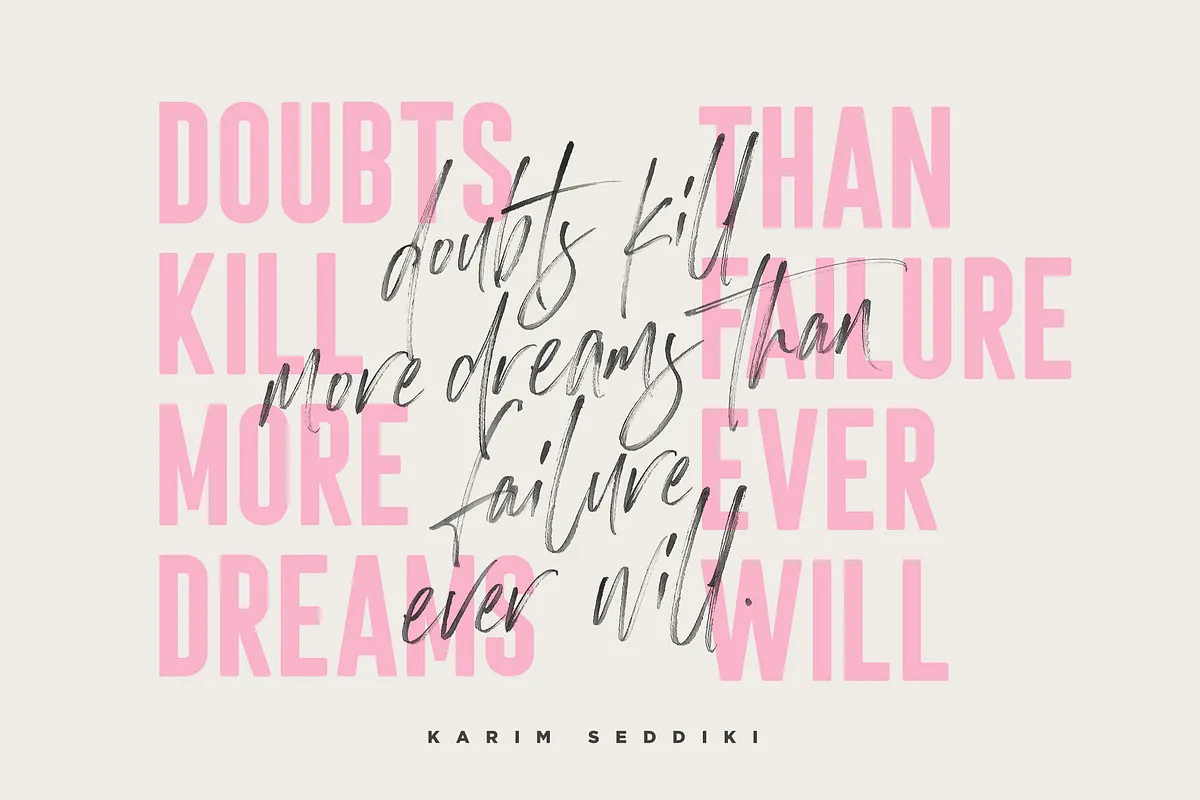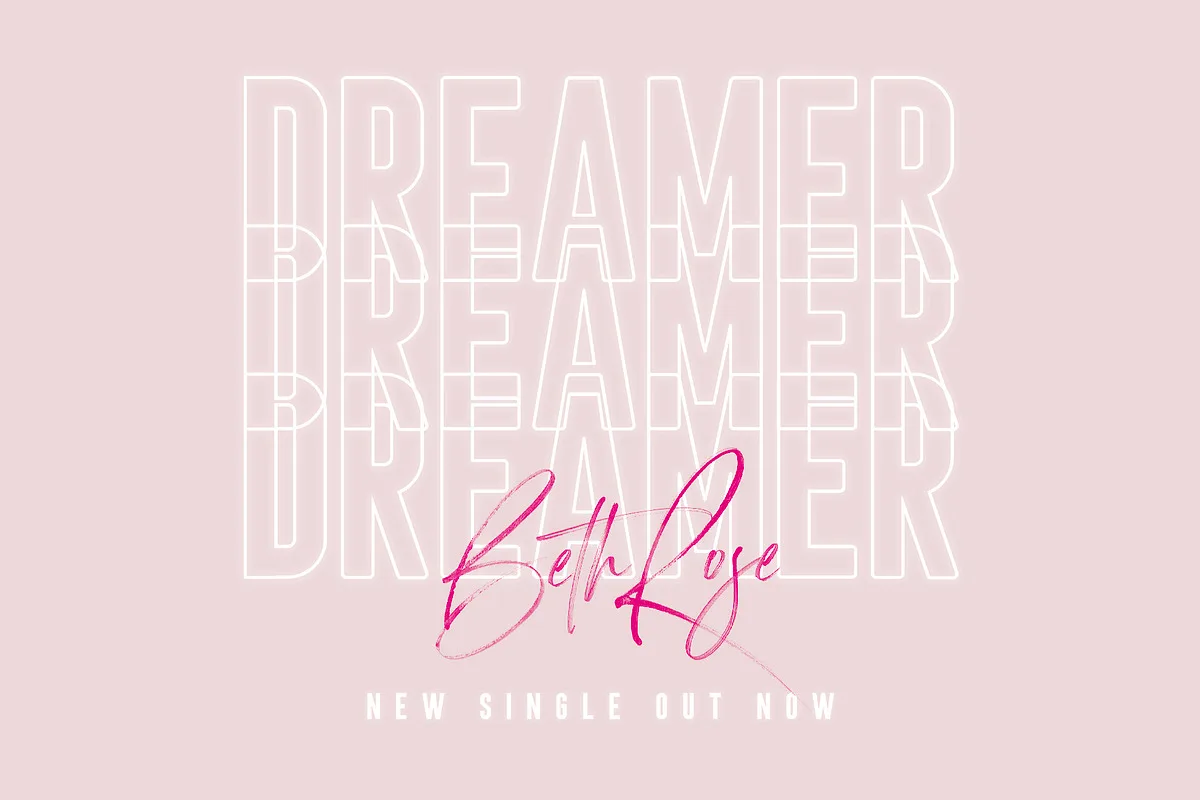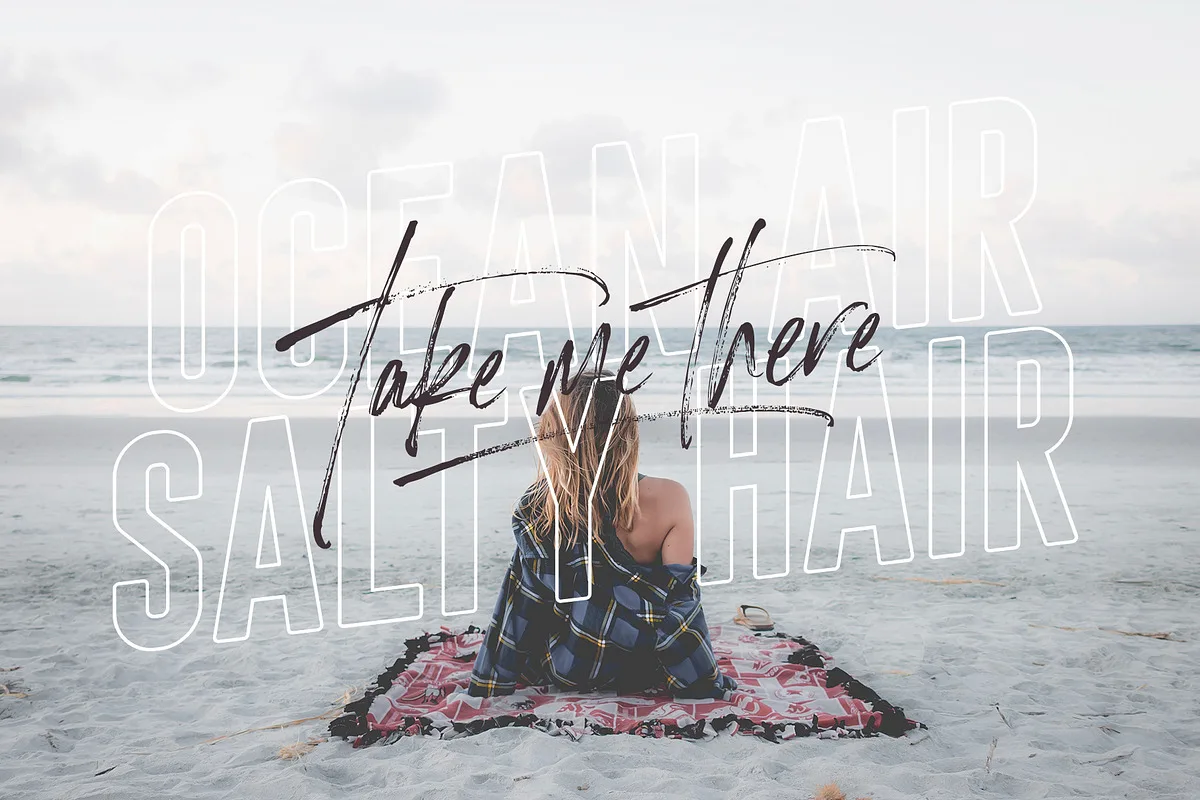
Let your hair down and enjoy the ride with Havana Sunset! Analogue meets digital in this font duo, pairing a carefree & textured script font with a trendy all-caps sans-serif – creating the perfect typography contrast for fun, free & stylish design projects.
This font duo is packed full of extra features; The script font includes a full alternate set of characters, as well as an additional SVG version, containing extra high-resolution textures. The sans font includes both a filled and an outlined version, giving you a variety of layout options. It’s a lot of fun to experiment with!
Havana Sunset Font Duo